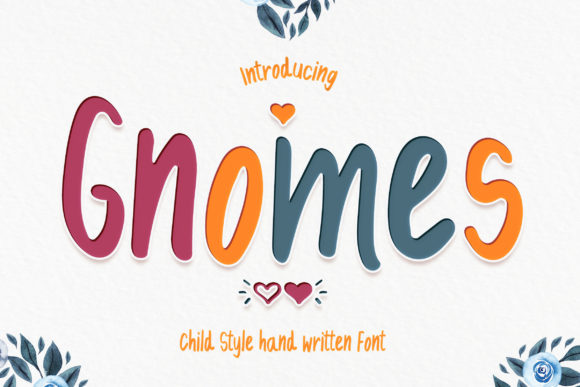
Behold Gnomes, a whimsical creation of numnim, the magical penman! This enchanting handwritten font dances with merriment, its every stroke exuding playfulness and cheer. Let Gnomes be your guide as you craft heartfelt holiday letters, where every word bursts with the joy of the season.
With Gnomes by your side, let imagination run wild, and sprinkle delight into your designs. Tailor-made for children’s realms, this font ignites boundless creativity. Let your designs exude happiness, using a rainbow of hues to bring life to each character.
But wait, there’s more! Gnomes not only enlivens your designs, it speaks to the inner child within. Its bubbly contours evoke nostalgia, reminding us of the magic that lies within. Unleash the wonder of Gnomes and watch as hearts young and old fall under its spell.
With Gnomes by your side, not only will you create designs that resonate, you’ll also forge connections that last. So go forth, dear designer, and let Gnomes work its magic, one letter at a time.